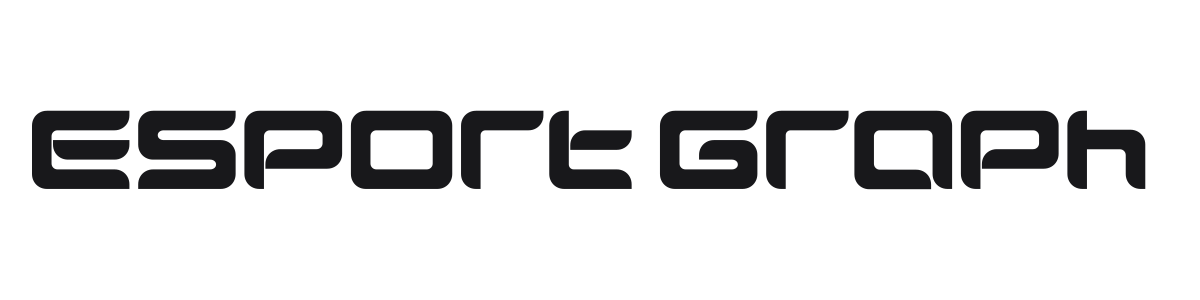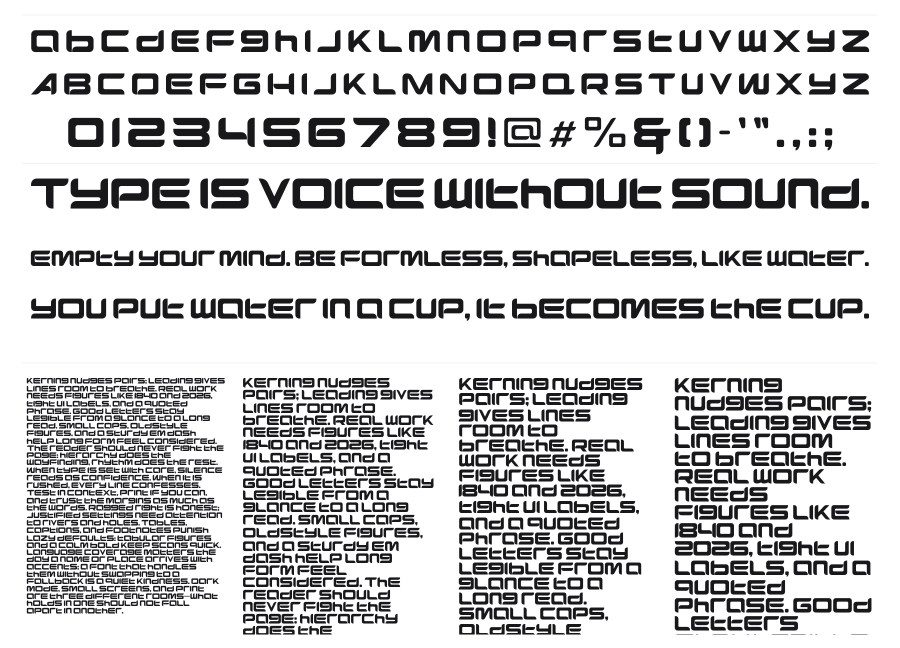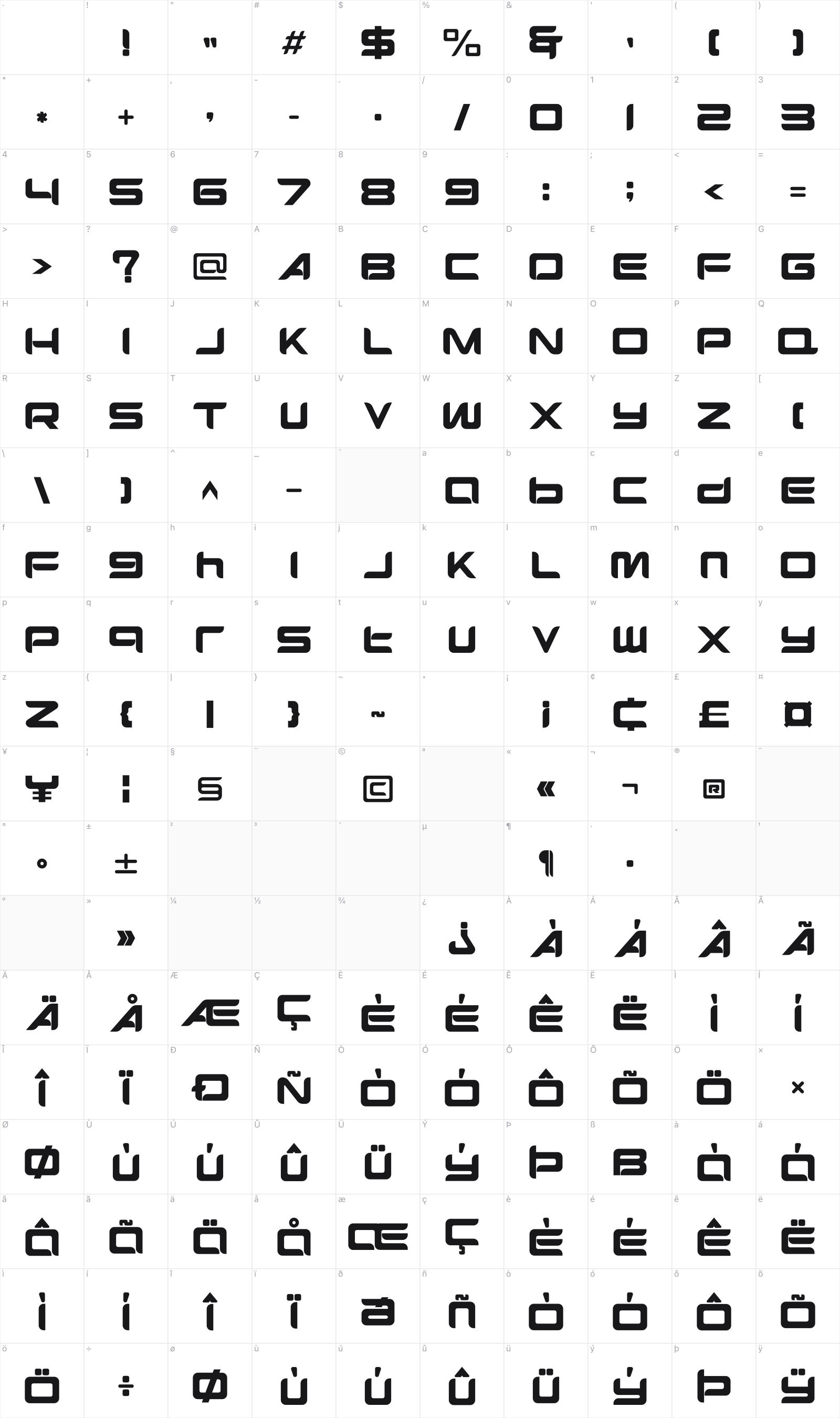
Esport Graph
Esport Graph is a bold geometric sans-serif built on squared forms with heavily rounded corners, designed for the competitive gaming and esports world. Its chunky monoweight strokes and tight spacing give it an aggressive, digital-age presence that reads instantly at large sizes. The design leans hard into the visual language of gaming brands, tech interfaces, and team identity.